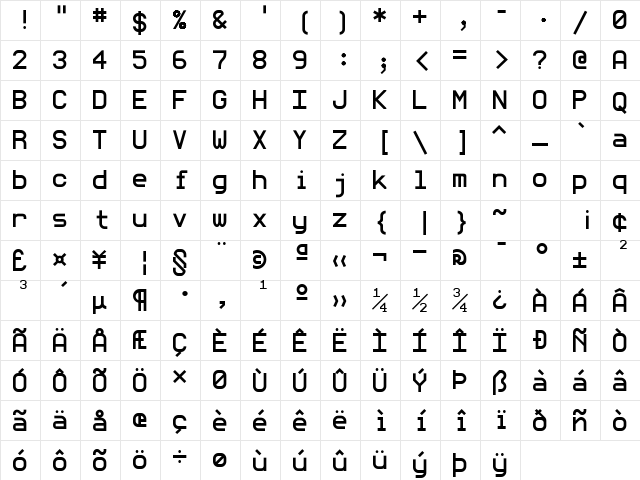
monoMMM_5 Regular
Design Context for monoMMM_5 Typeface
monoMMM_5 uses fixed-width spacing throughout, giving it the structured, systematic character associated with coding environments and technical documentation.
Pro Tip: Use monoMMM_5 with slightly increased line-height for extended reading — fixed-width spacing can feel dense in longer passages without extra breathing room.